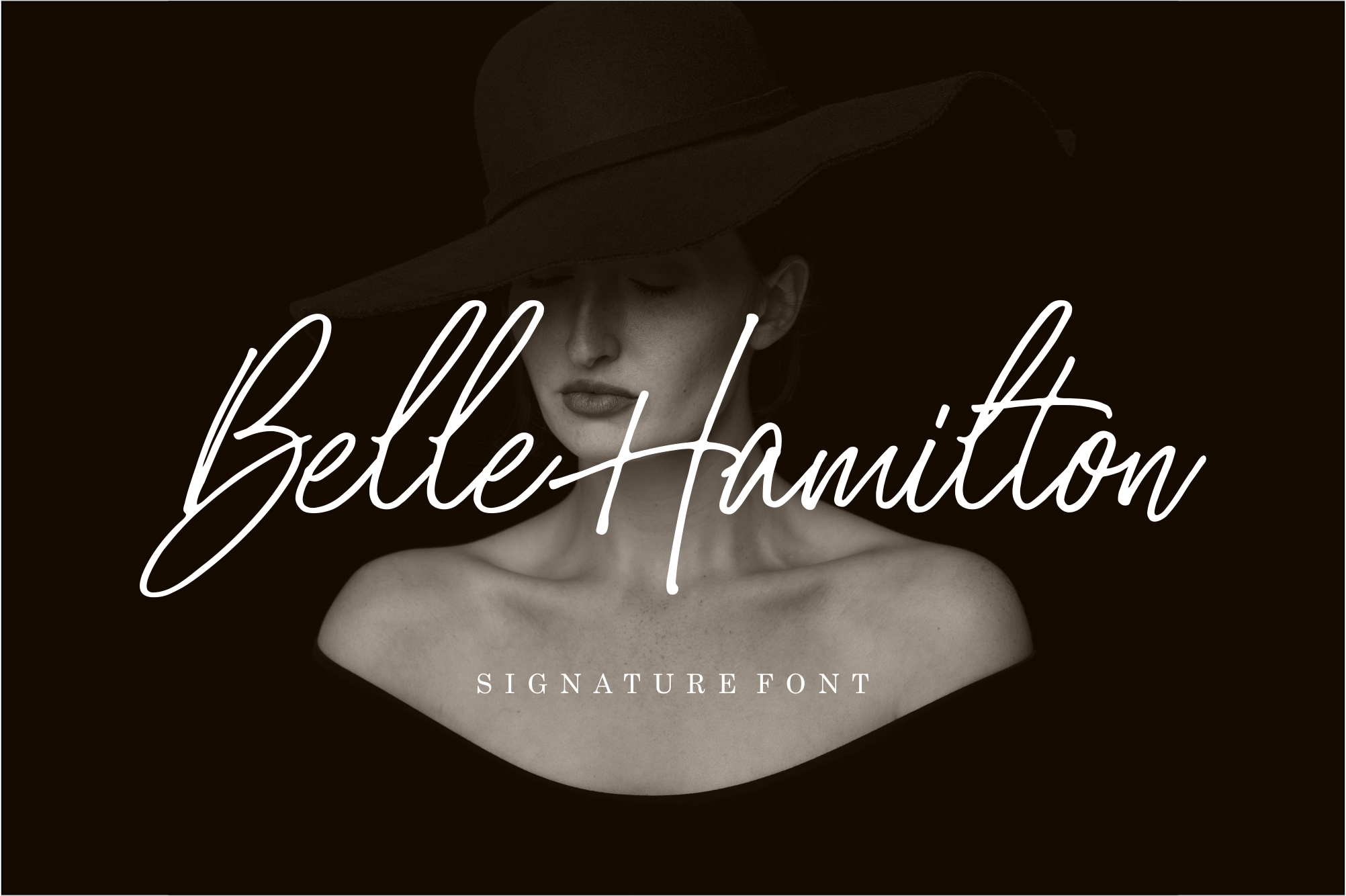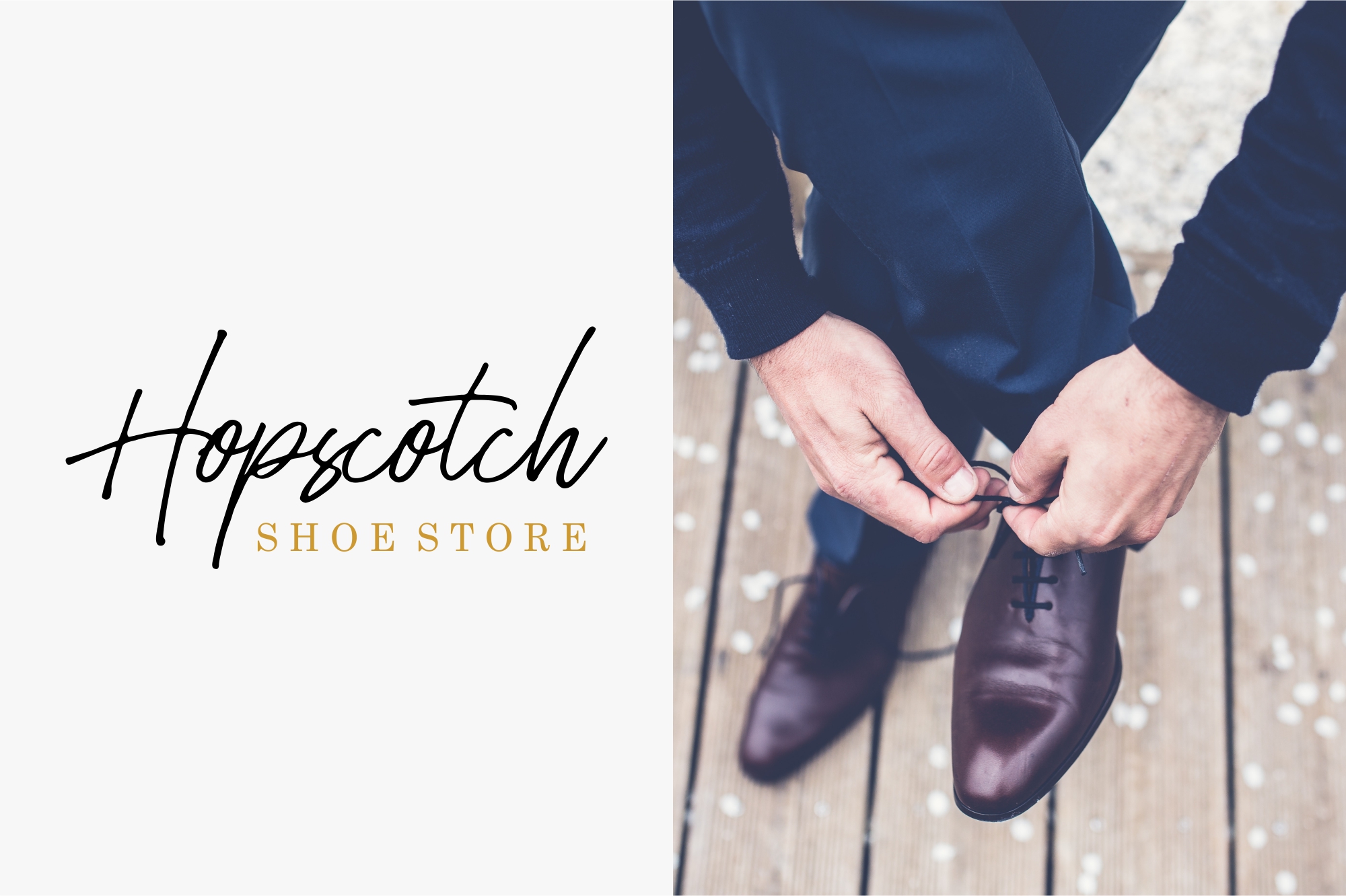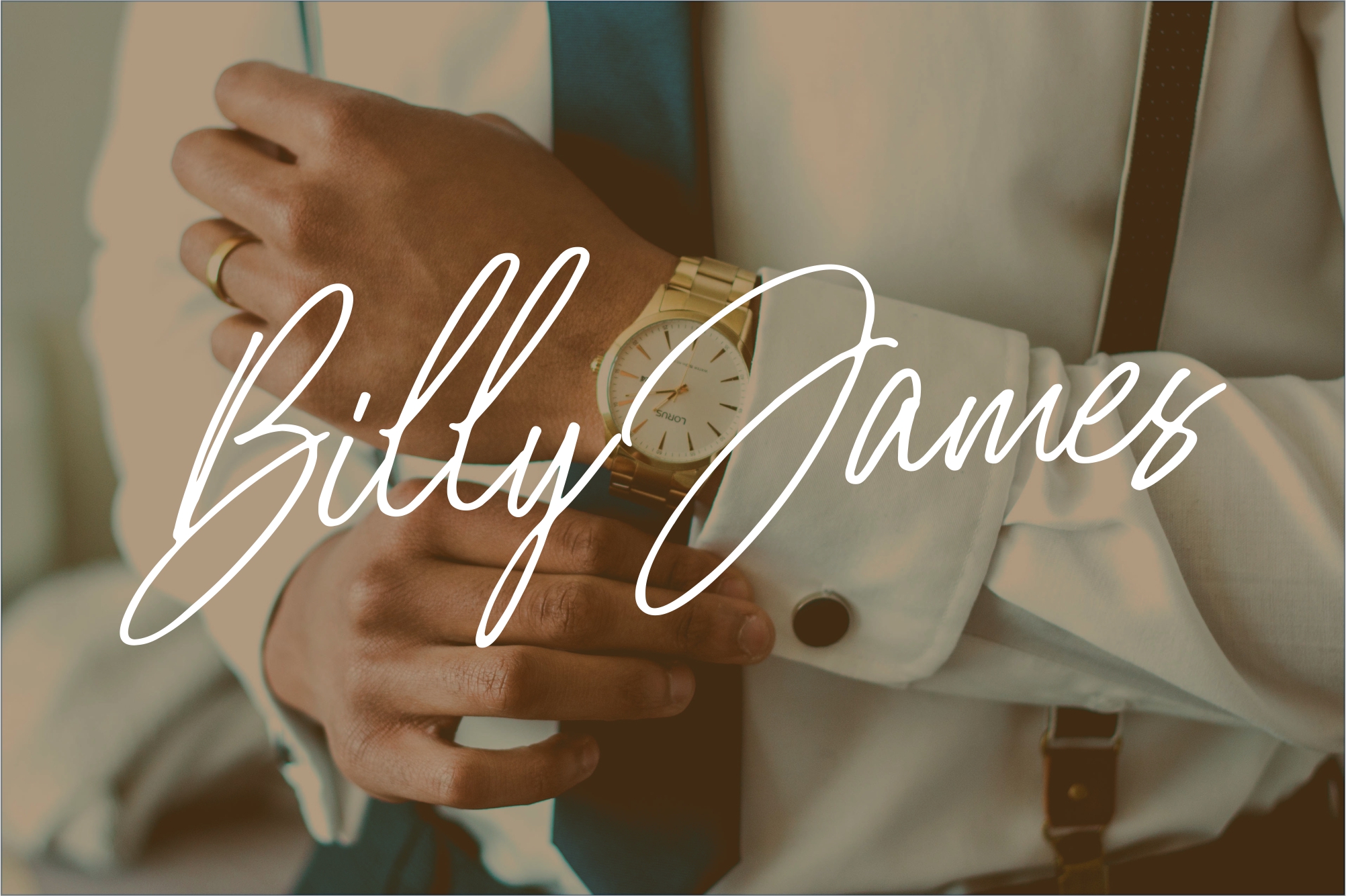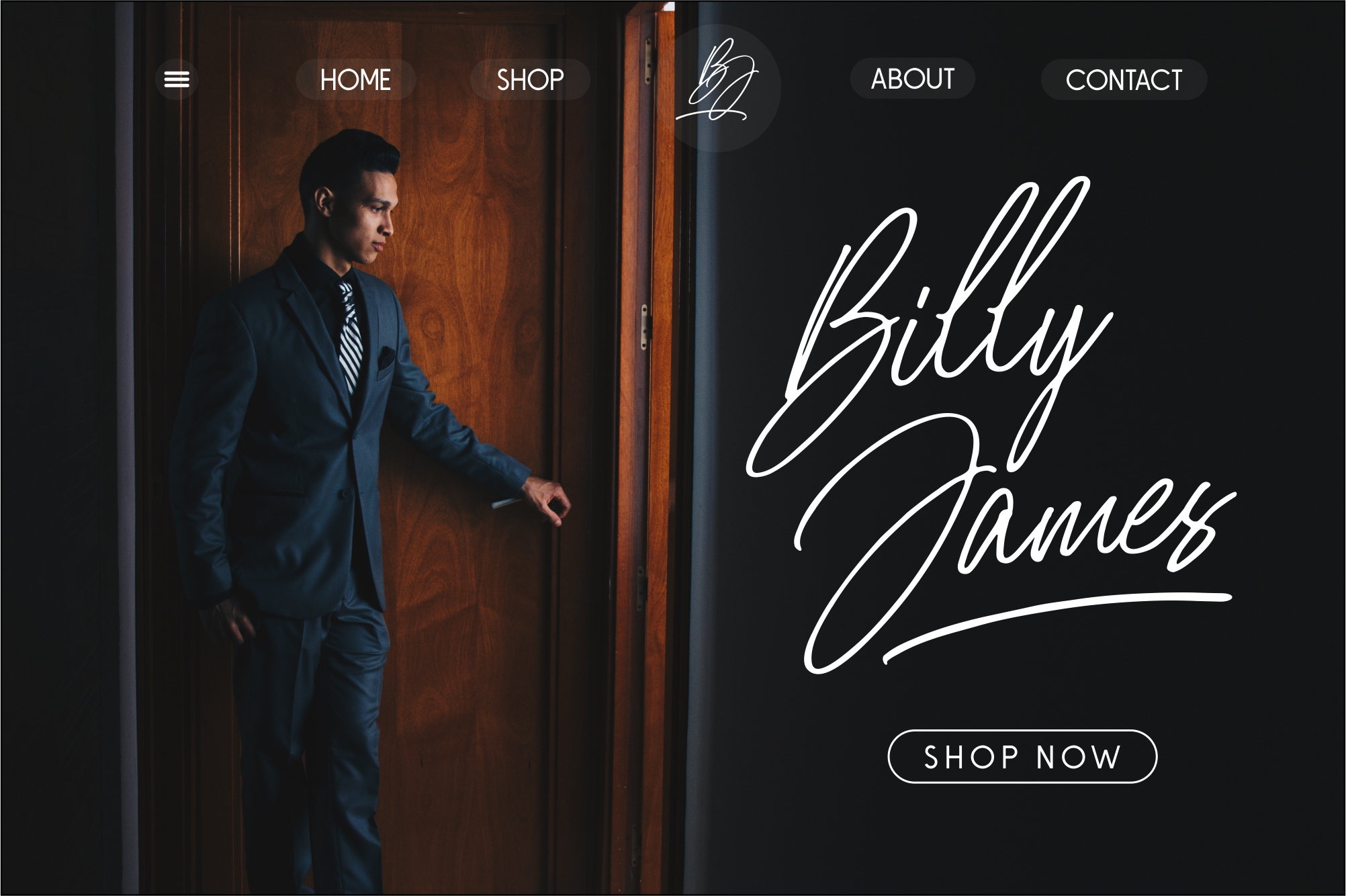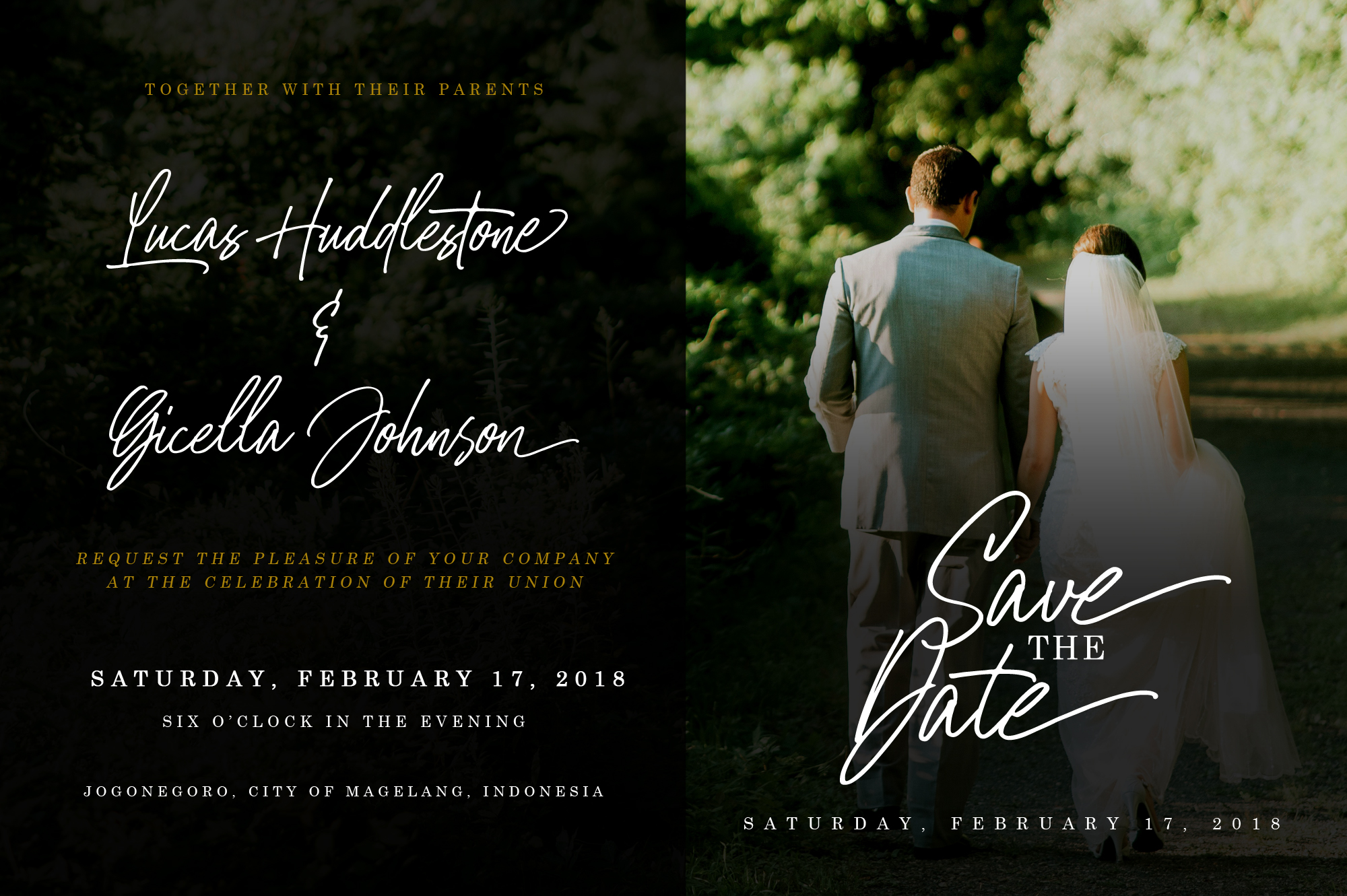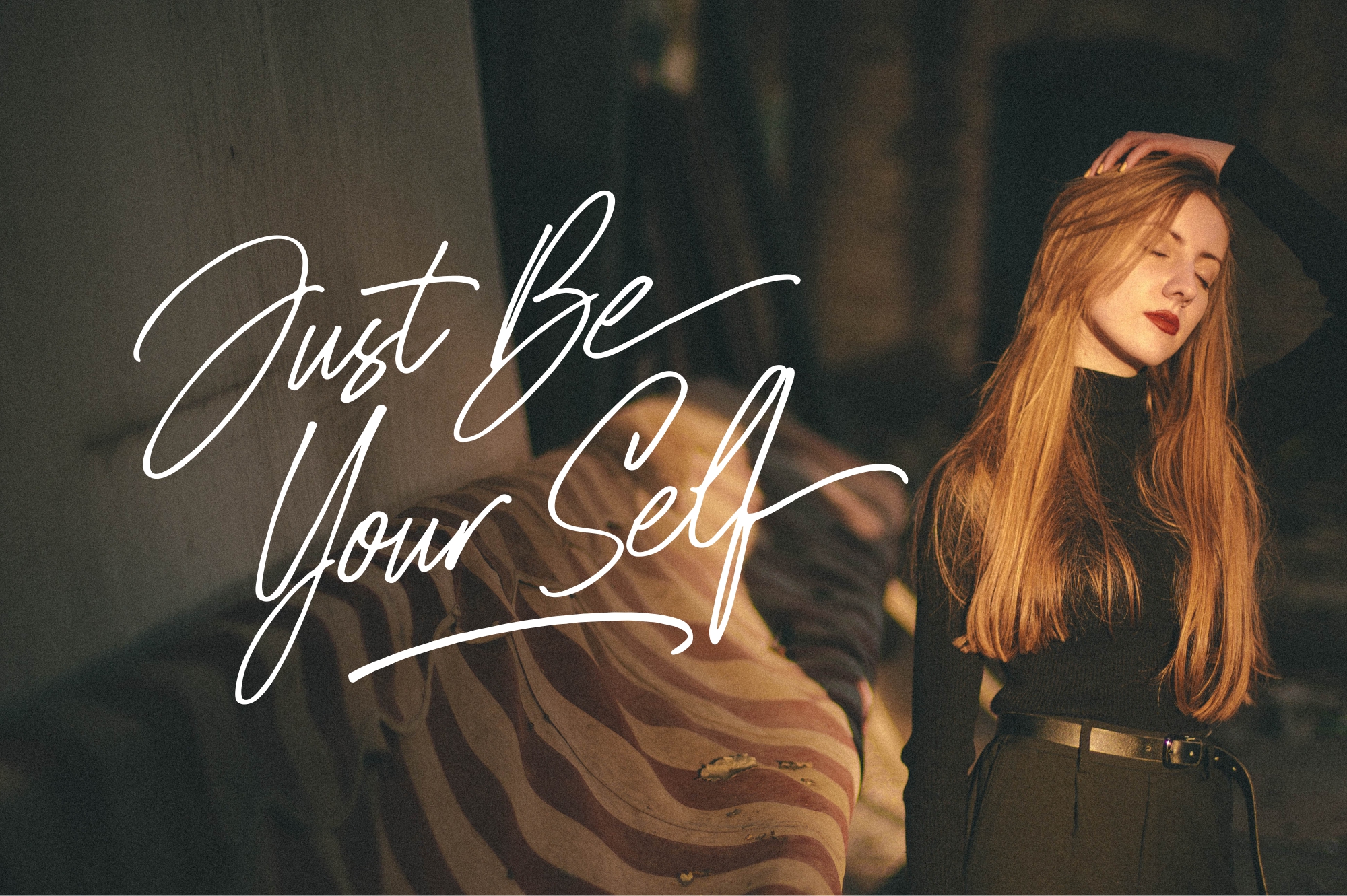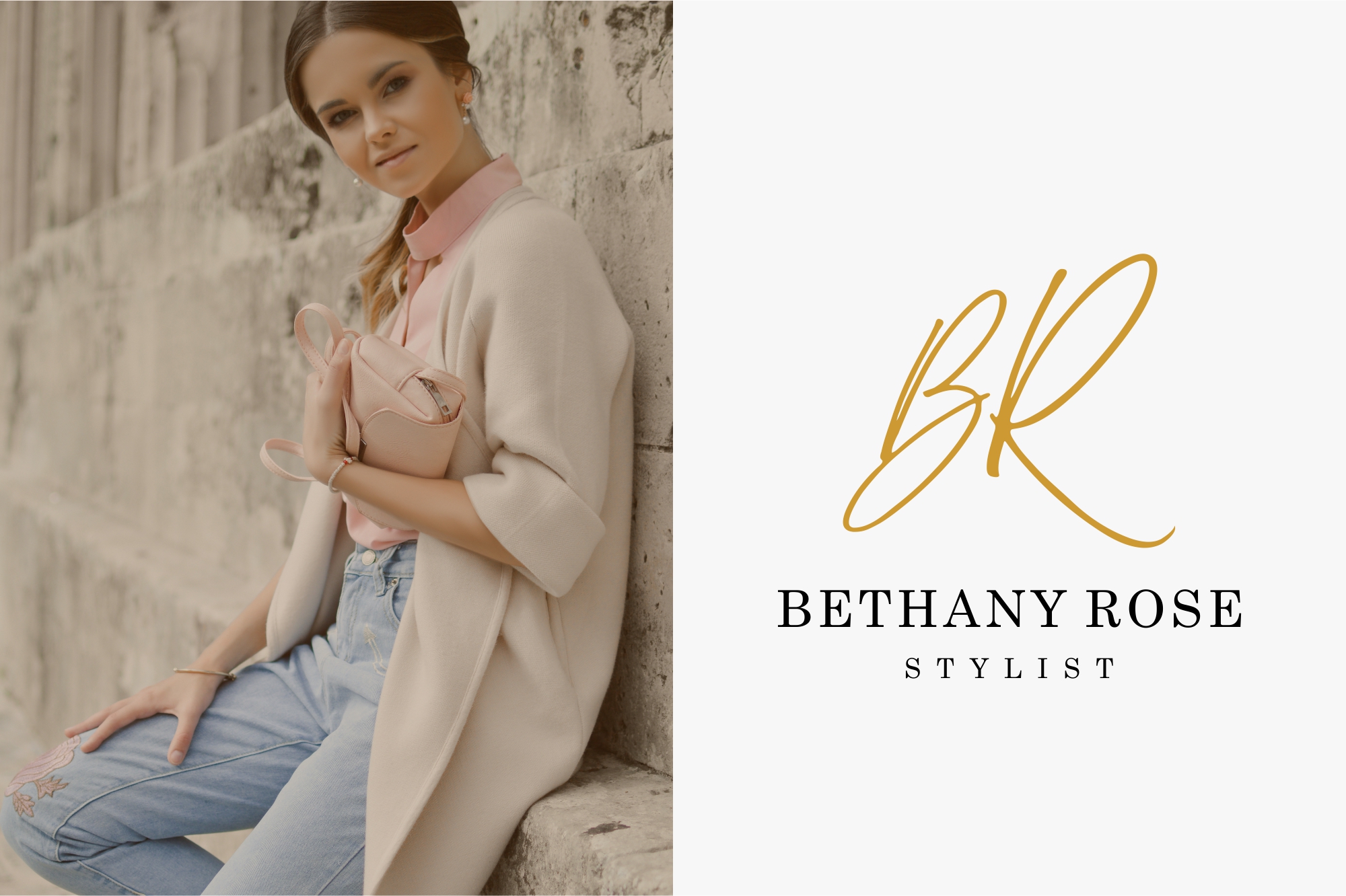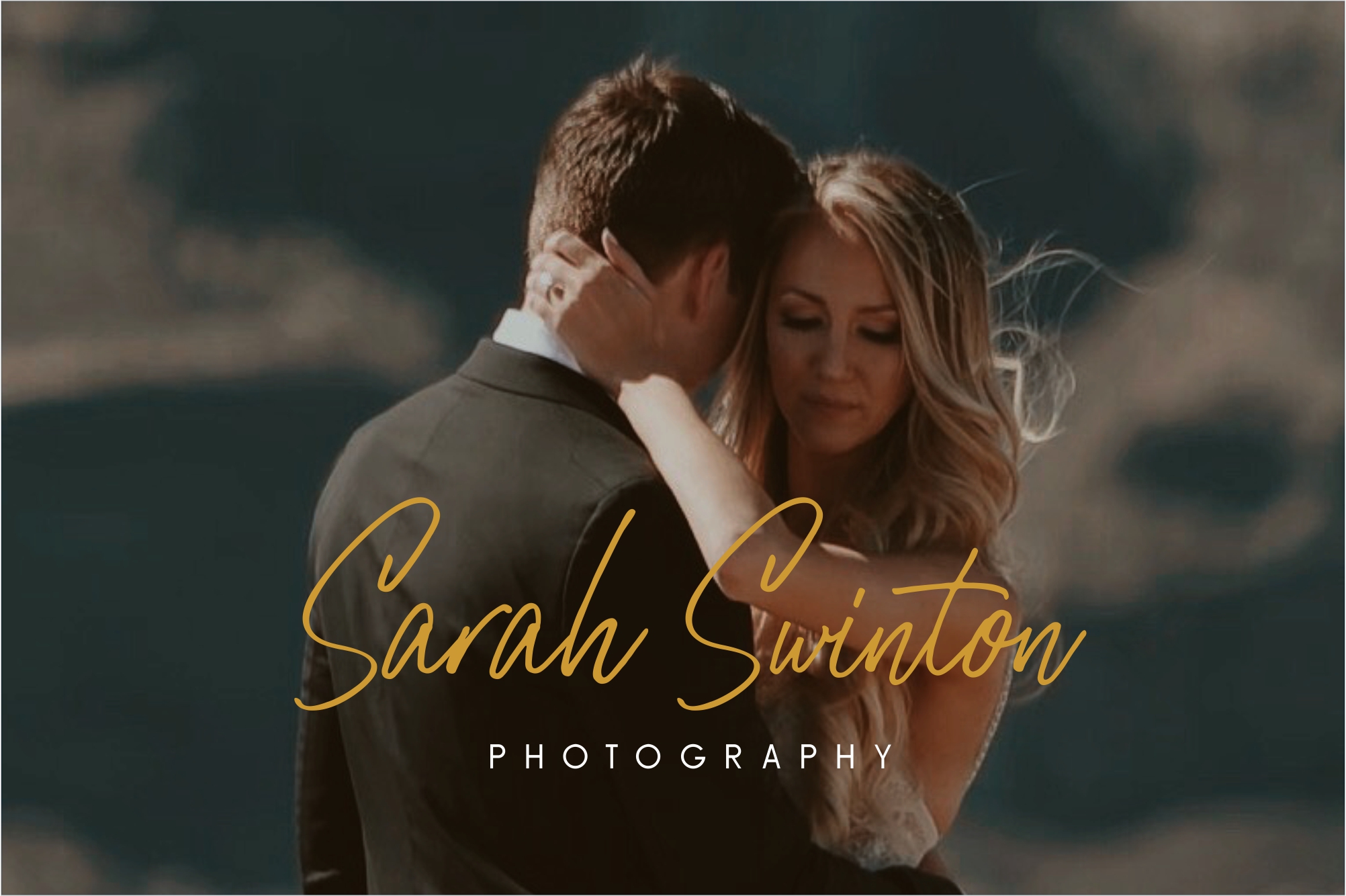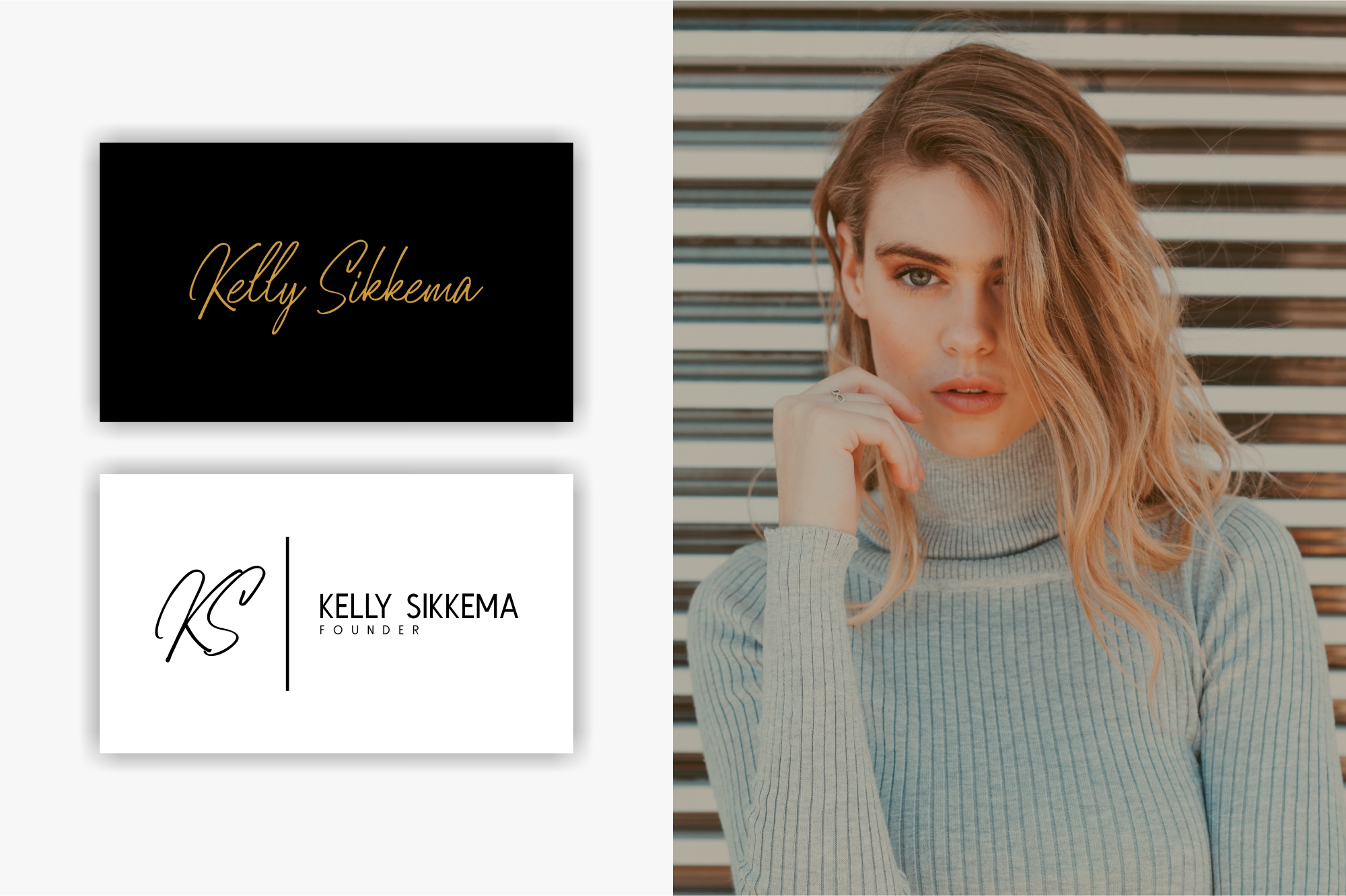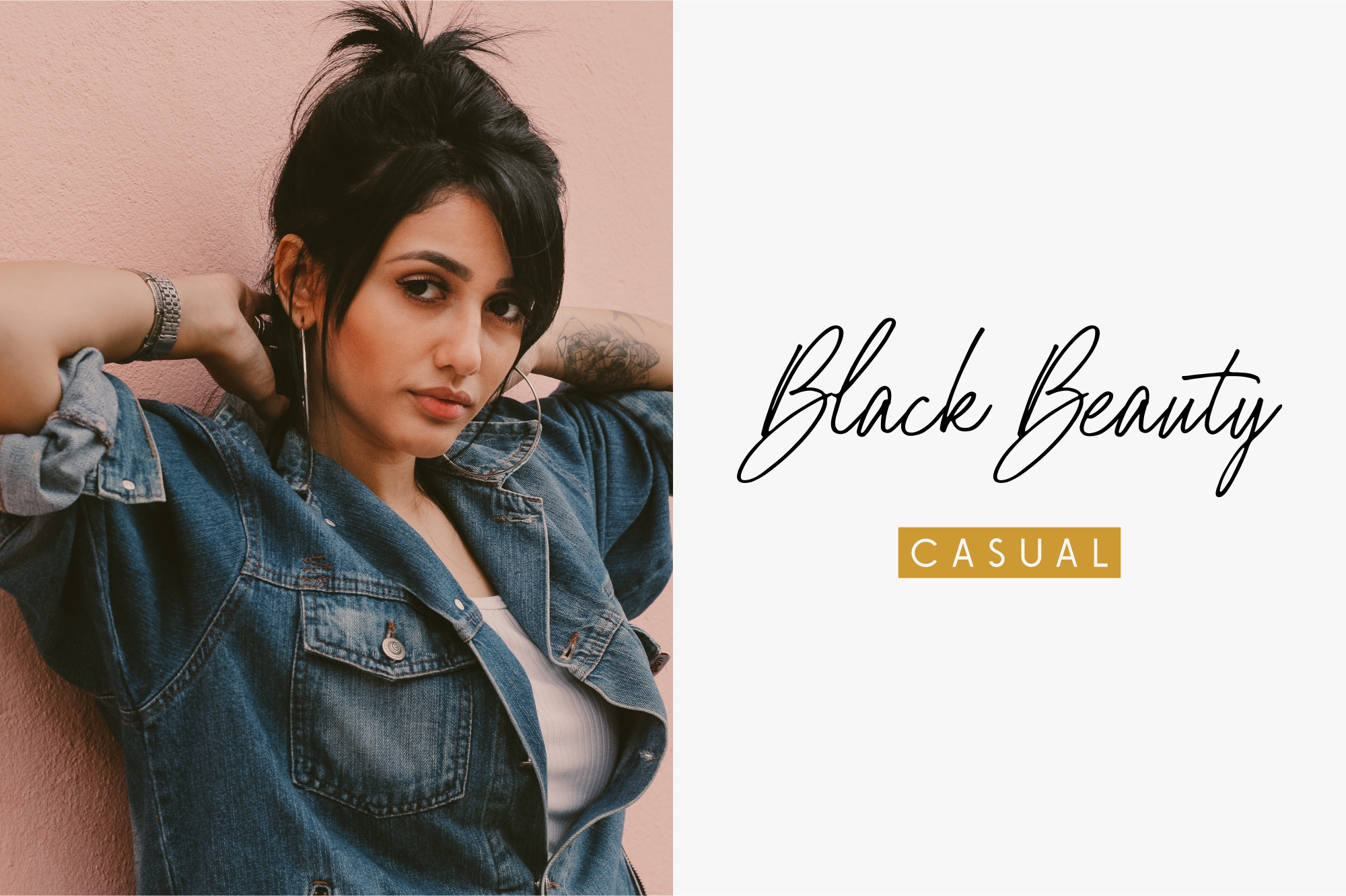
Belle Hamilton Font
About Belle Hamilton Font
Belle Hamilton is a beautiful signature font with a natural flow. Belle Hamilton is a monoline signature font style that will give stunning impact to your designs.